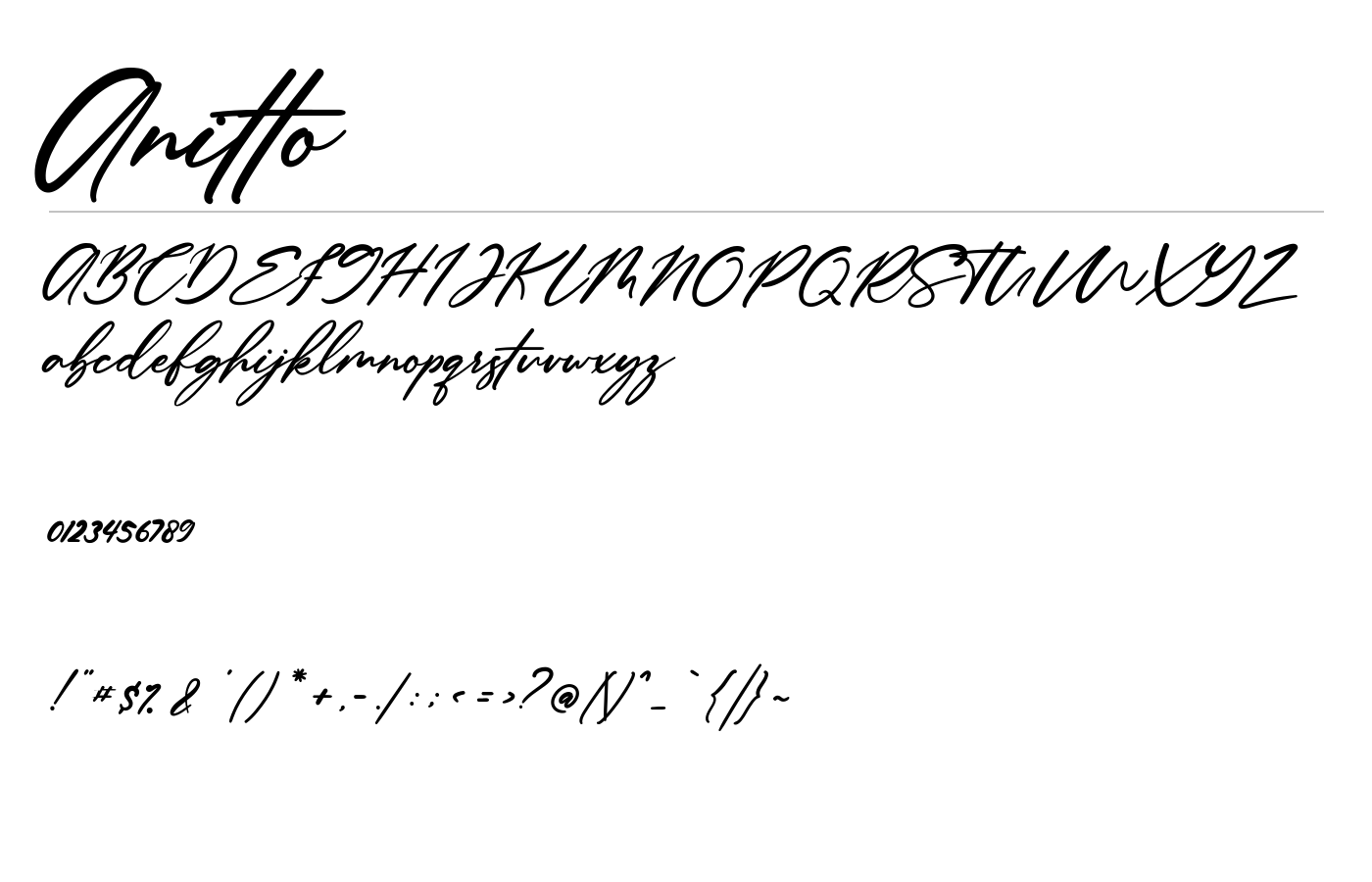
Anitto is a stylish script font featuring elegant, flowing strokes that mimic natural handwriting with a modern twist. Its medium weight and smooth, slightly angled letterforms convey a sense of sophistication and personal charm, making it ideal for branding, invitations, and fashion-related designs where a chic, approachable feel is desired. This font works especially well in logos, headlines, and decorative text, adding a graceful, artistic touch to any project.
Anitto Font